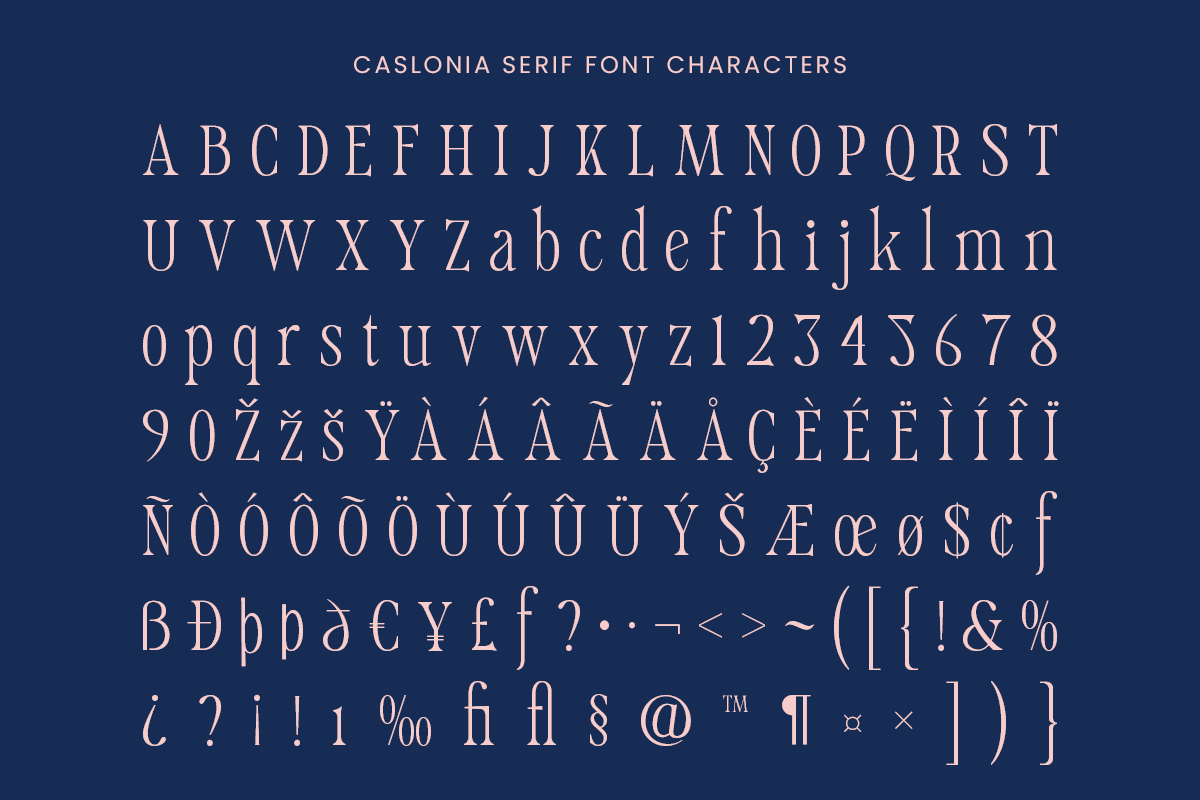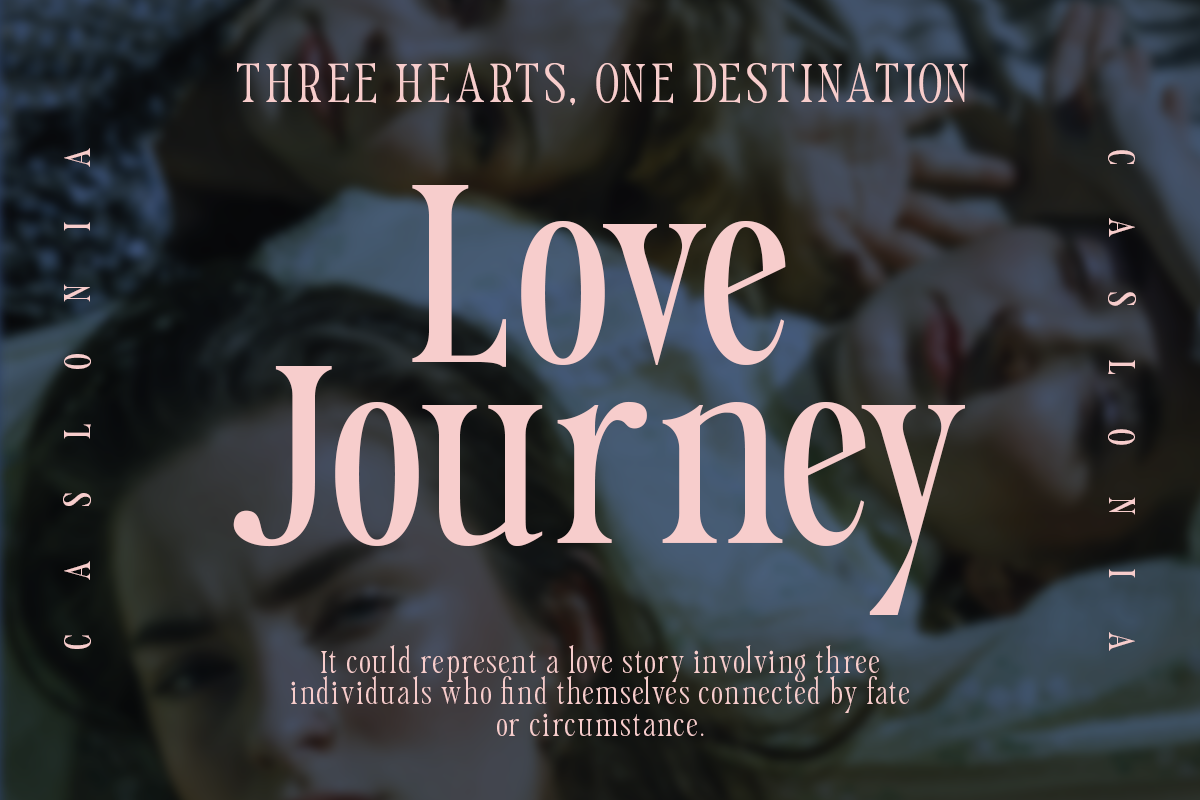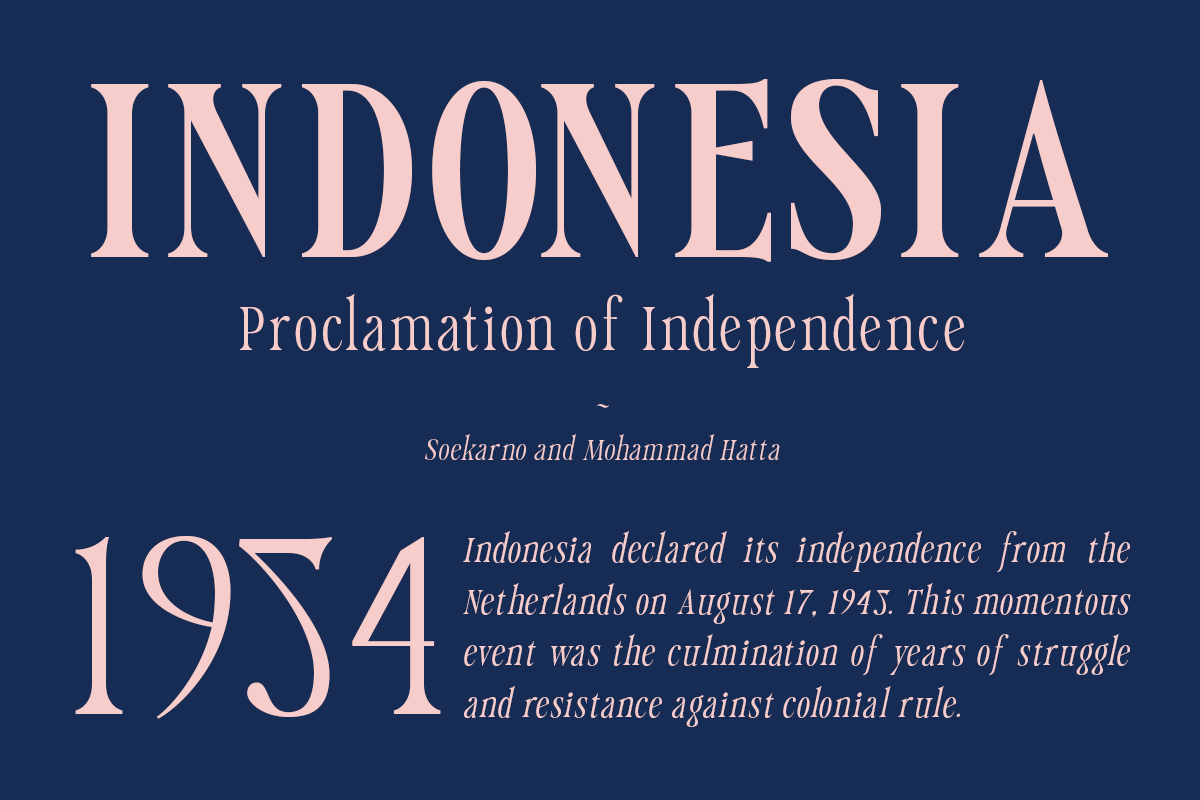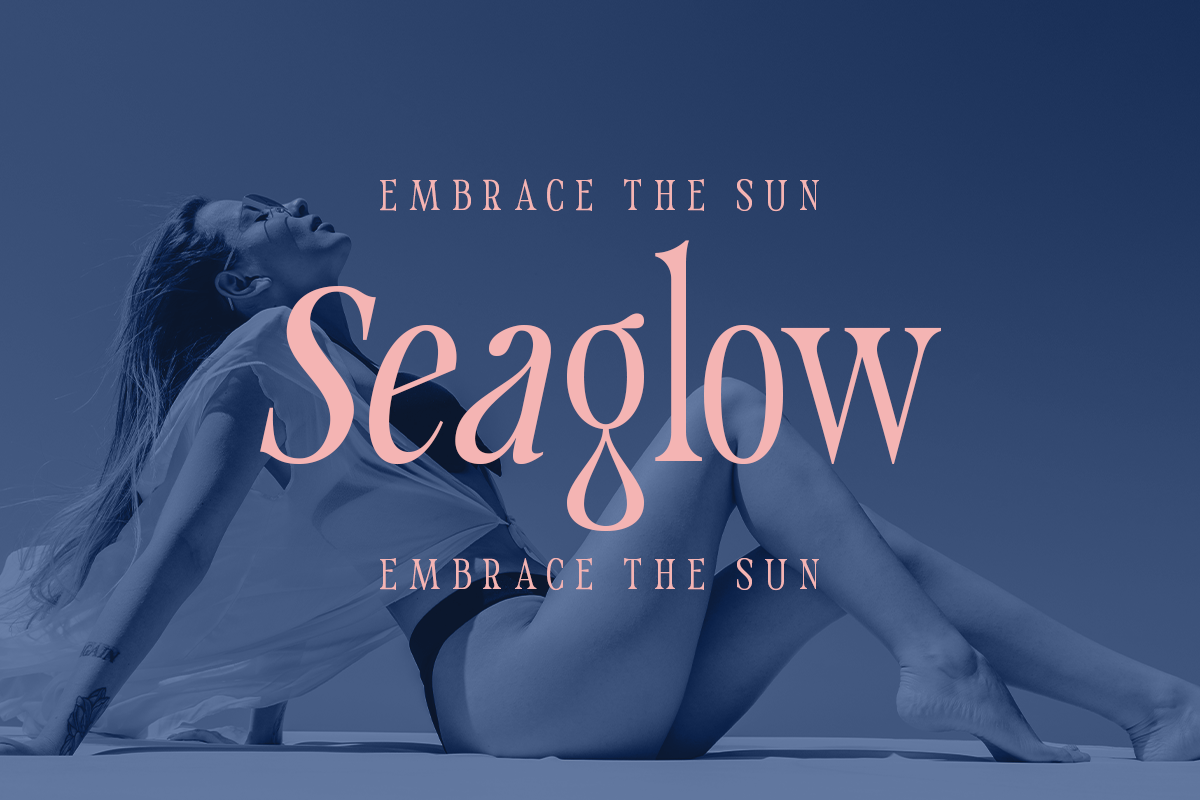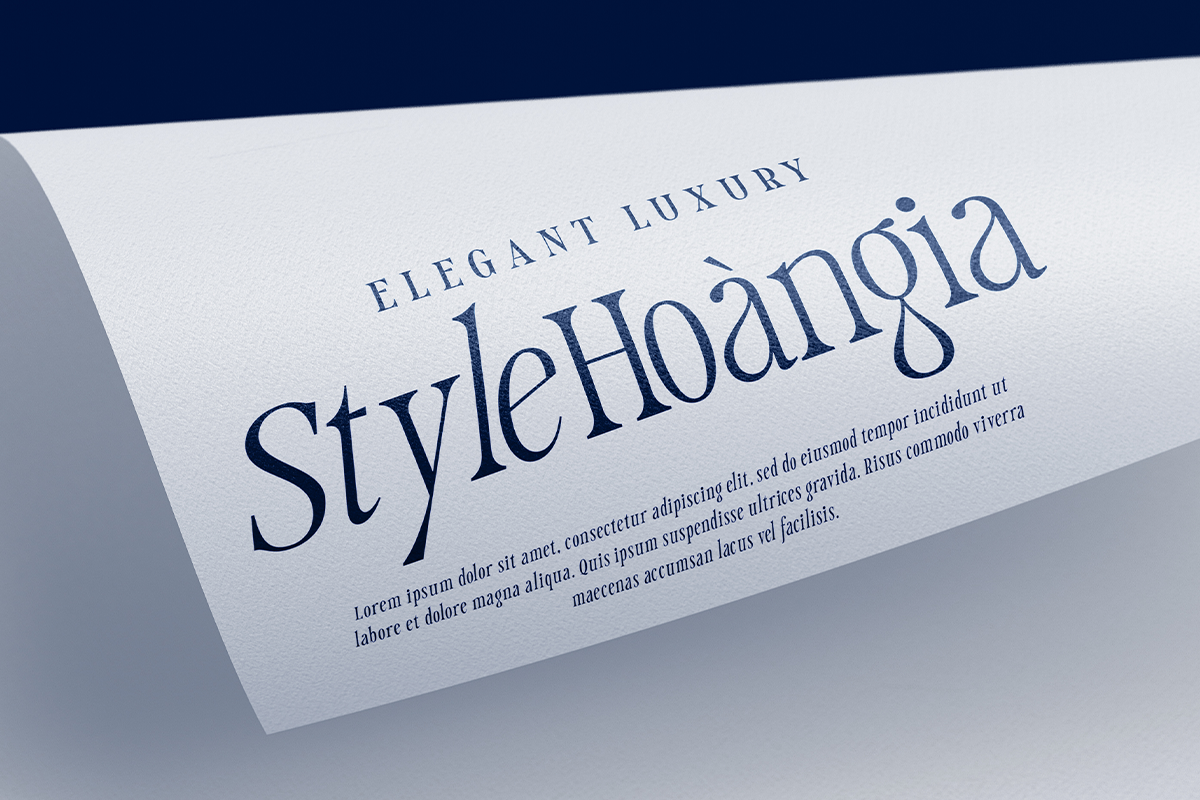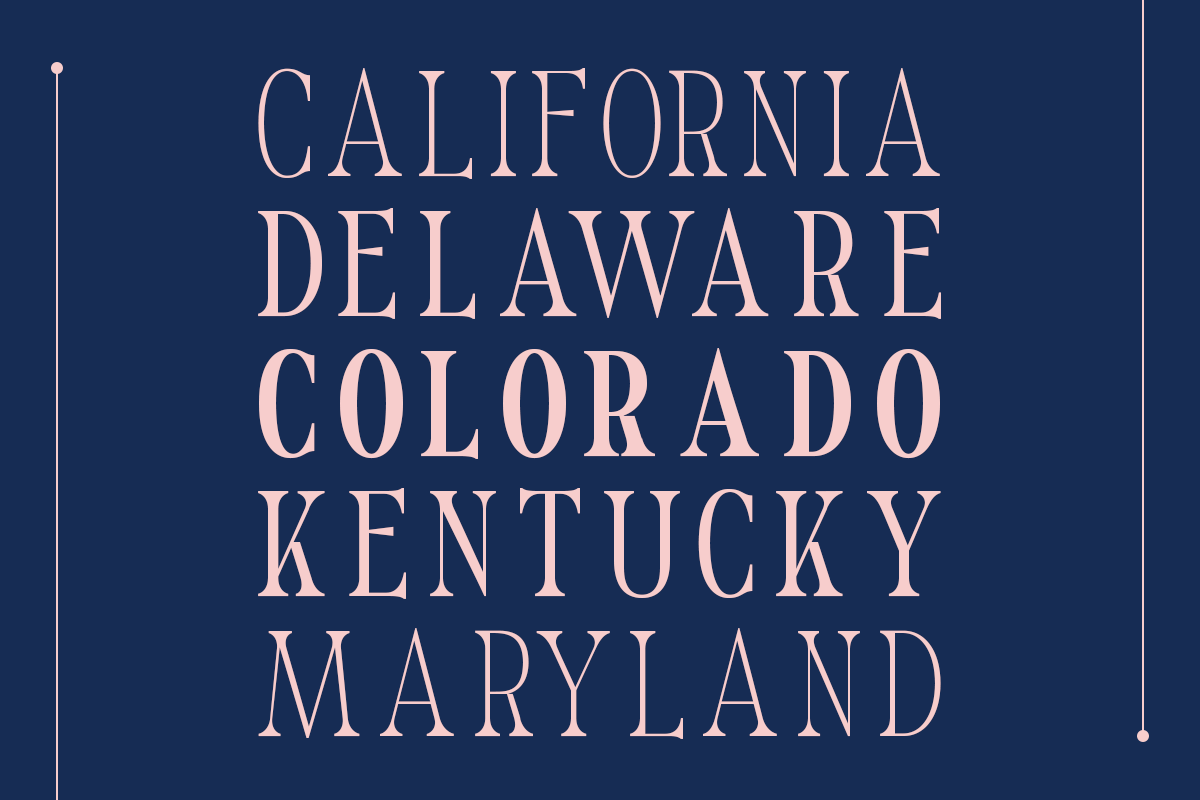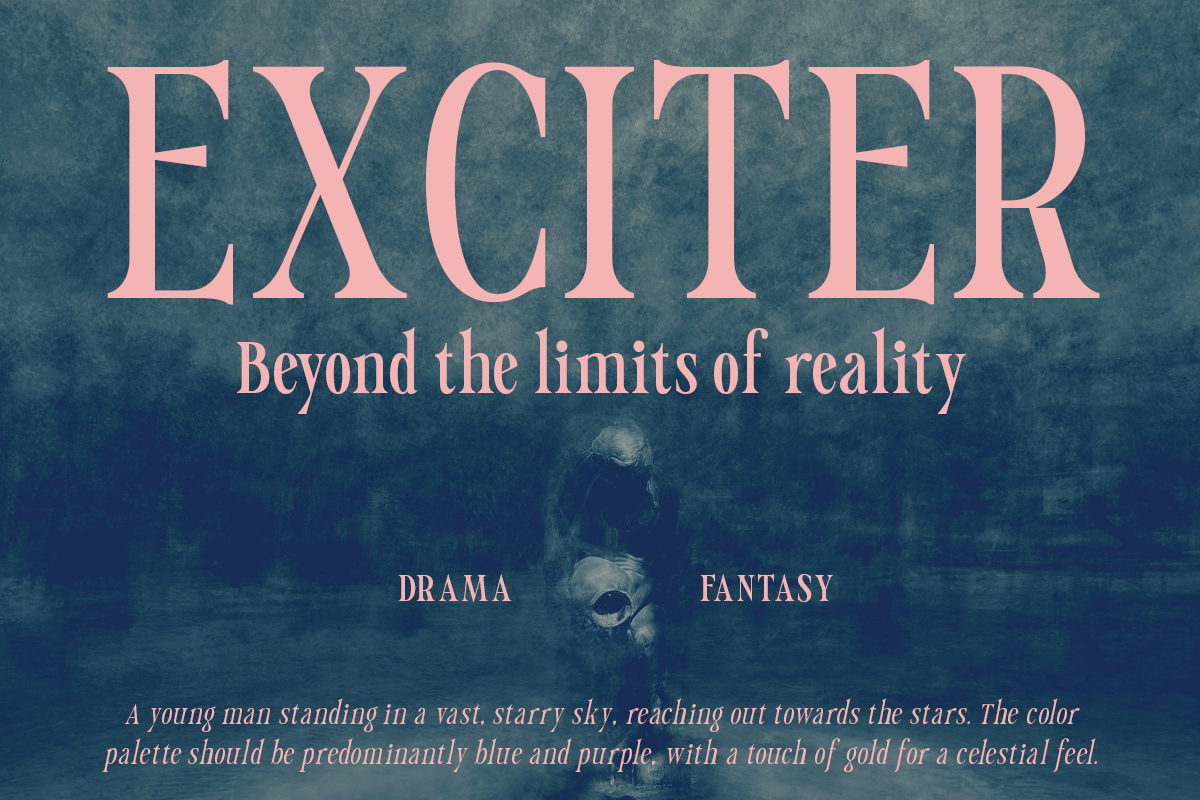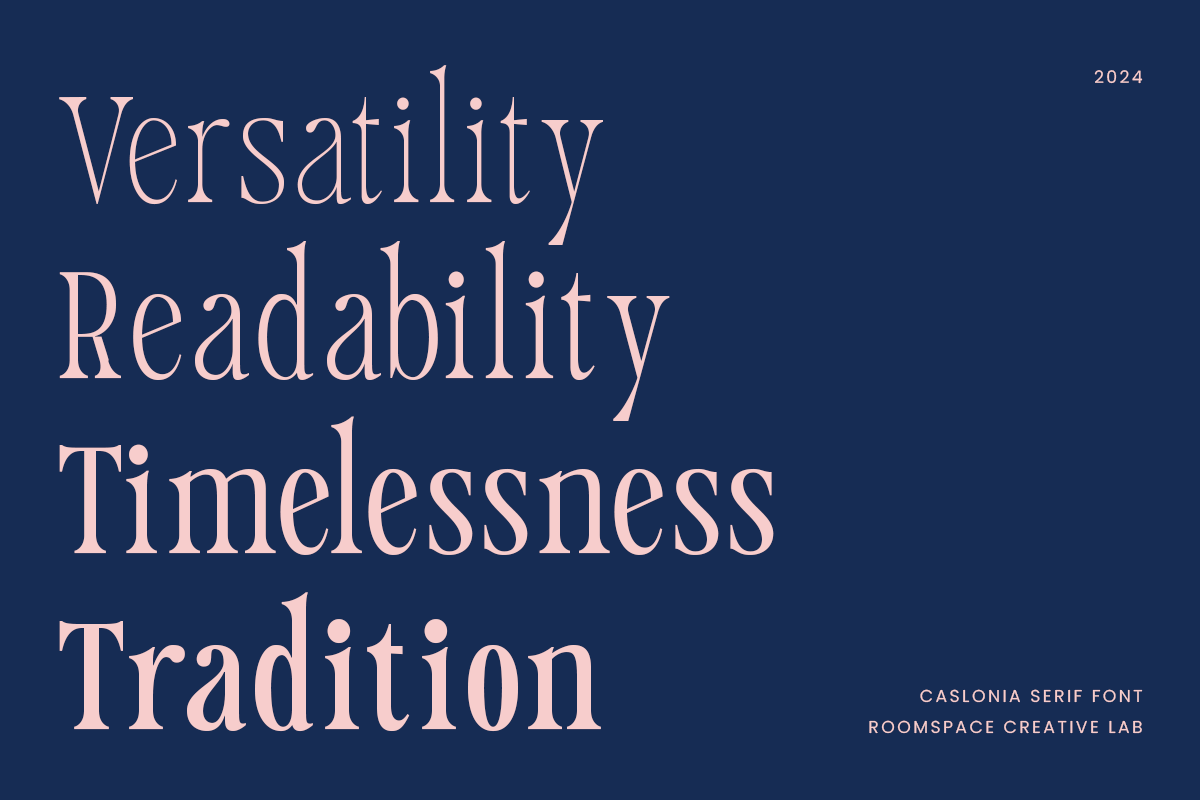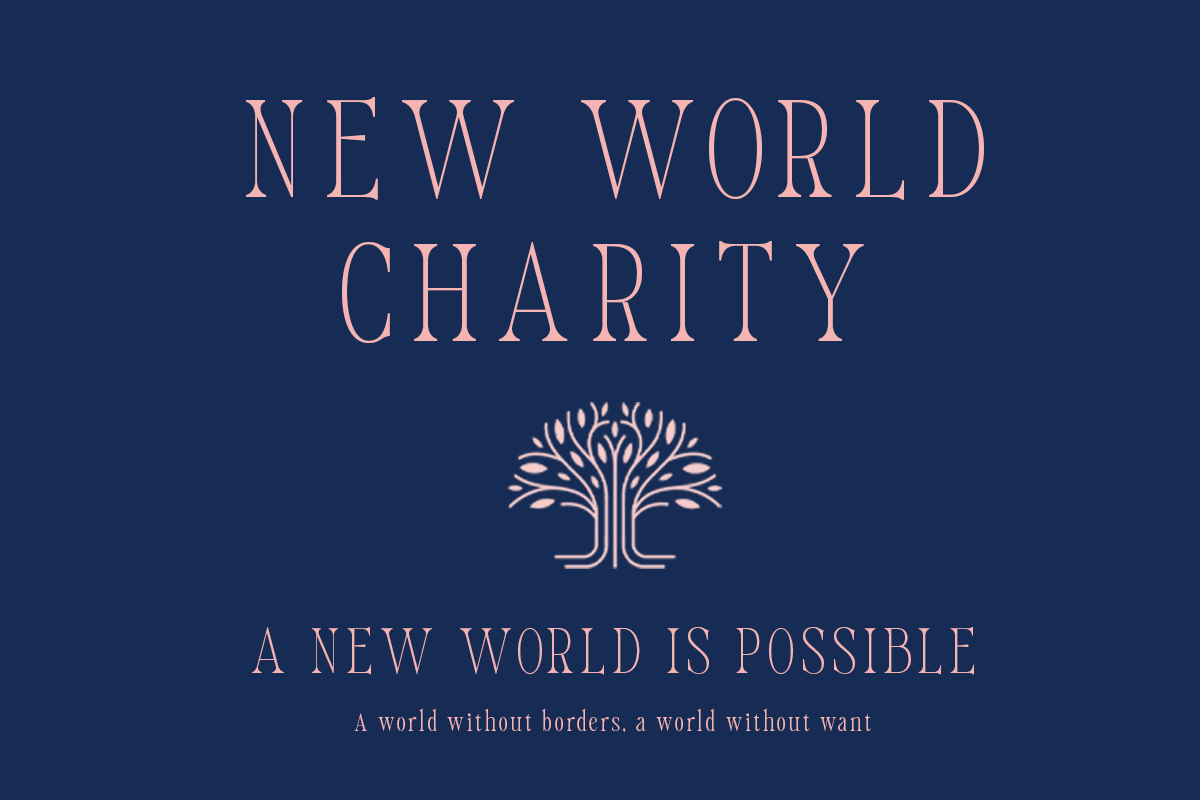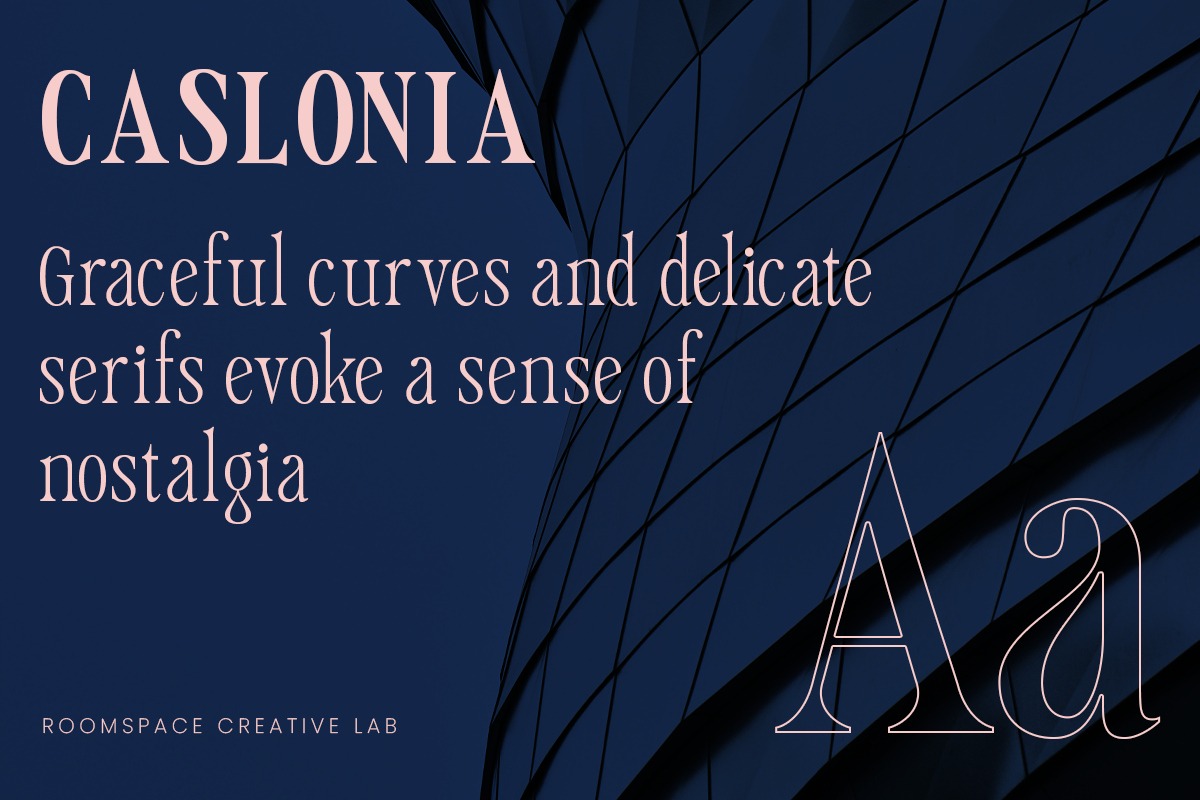
Caslonia - Nostalgic Classic Serif
Caslonia is a meticulously crafted serif typeface inspired by the timeless elegance of classic typography. Designed with a touch of modern sophistication, this font offers a versatile range of 14 styles, including 7 distinct weights and their matching italics, from Thin to Bold. Caslonia's slightly tall and refined structure makes it an ideal choice for logo design, branding, and luxury projects that demand a touch of class and elegance.
Perfect for those seeking a blend of vintage charm and modern aesthetics, Caslonia provides designers with a toolkit suitable for various design needs, whether you're creating an elegant logo, crafting luxury invitations, or adding a touch of sophistication to editorial layouts. This popular typeface is also an excellent choice for projects that require a stylish and elegant look.
14 Styles: 7 Weights from Thin to Bold, including matching Italics
Classic Serif with a Modern, Luxurious Appeal
Perfect for Logos, Branding, and Editorial Design
Combines Vintage Elegance with Contemporary Style
PUA Encoded for Easy Access to All Glyphs